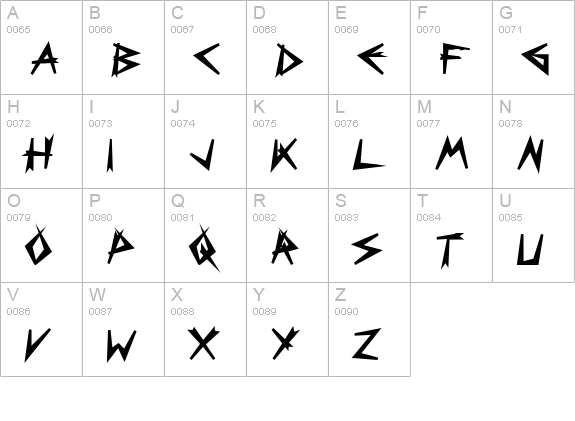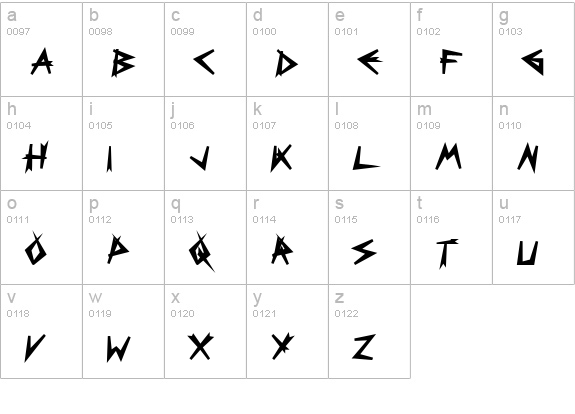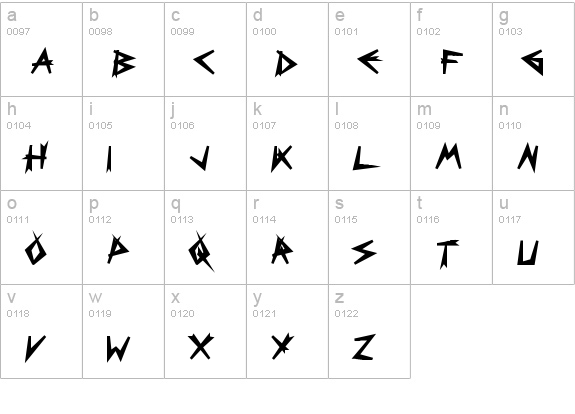
Bizarre Black is a maximum-weight, dramatic variant in the Bizarre typeface family \xE2\x80\x94 well suited to maximum-impact headlines, posters, and packaging.
The Bizarre Black font is a unique and eye-catching typeface that will add a touch of eccentricity to any design project. Its bold and intricate letterforms are sure to make a statement and stand out from the crowd. This font is perfect for creating attention-grabbing headlines, logos, posters, and more. The best part? Bizarre Black is available for free download at FontsMarket.com, making it accessible to all designers and creatives looking to add a quirky twist to their work. Don't miss out on this one-of-a-kind font that will take your designs to the next level. Download Bizarre Black today and let your creativity run wild!